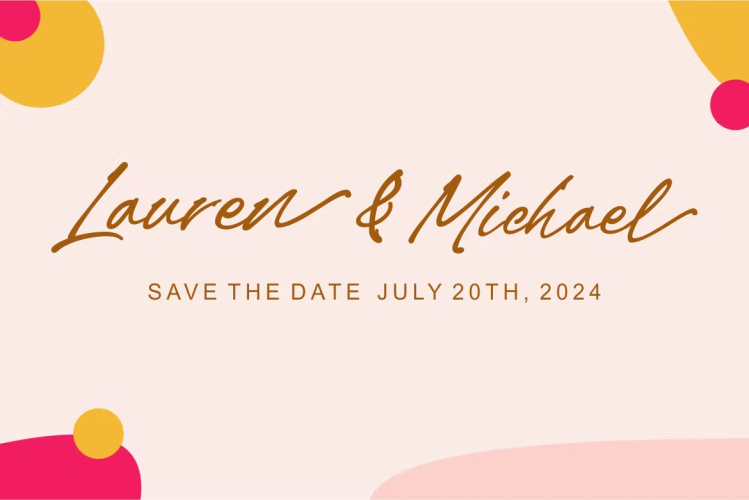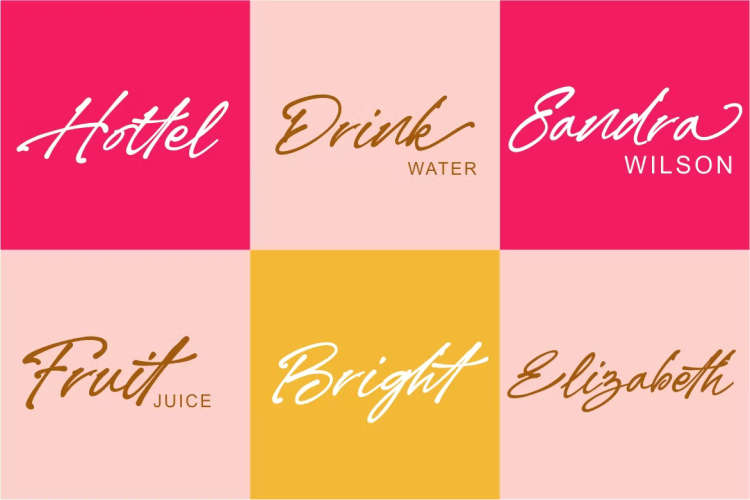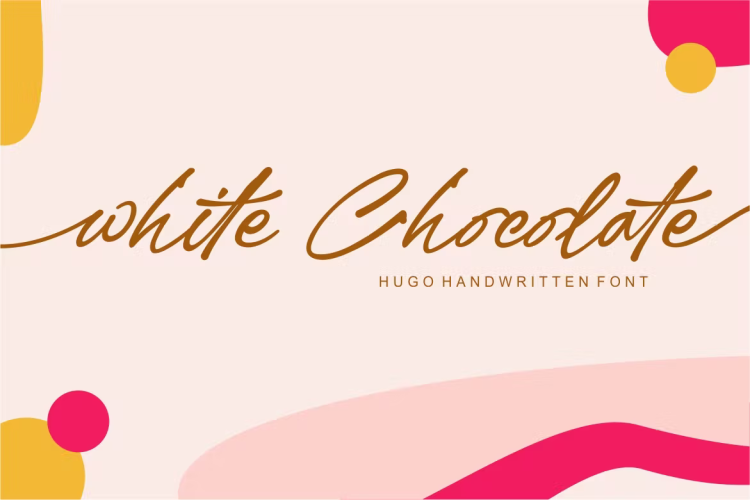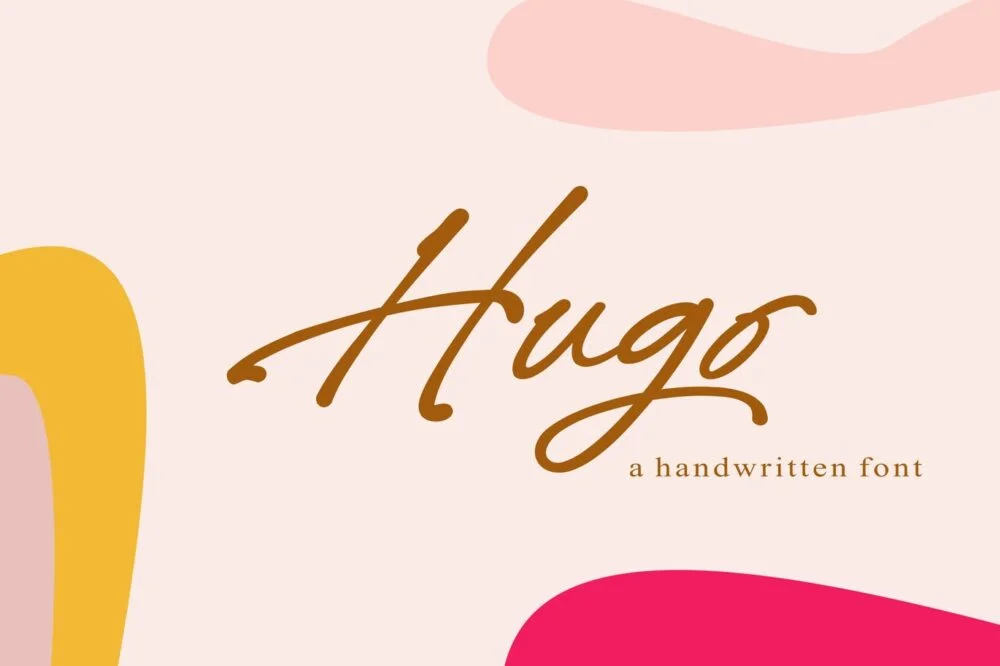
Hugo Font
Hugo Font is perfect for branding projects, a logo, badge, insignia, packaging, headline, poster, t-shirt/apparel, greeting card, and wedding invitation. headers and any…
Hugo Font is perfect for branding projects, a logo, badge, insignia, packaging, headline, poster, t-shirt/apparel, greeting card, and wedding invitation. headers and anything else about your imagination.
Hugo Script allows you to create custom dynamic text.
Where Hugo Font works best
Hugo Font brings a personal, handwritten warmth to invitations, menus and place cards.
Craft brands — coffee, cosmetics, bakery — use scripts like Hugo Font for signature-style logos and labels.
Pair Hugo Font with a plain sans for quotes, stories and Pinterest pins that feel handmade.
What is Hugo Font good for?
Hugo Font is a Script And Handwritten typeface tagged Branding, Packaging, Poster, Script. It works well for headlines, logos, posters, social media graphics and branding projects that need a distinctive script and handwritten look.